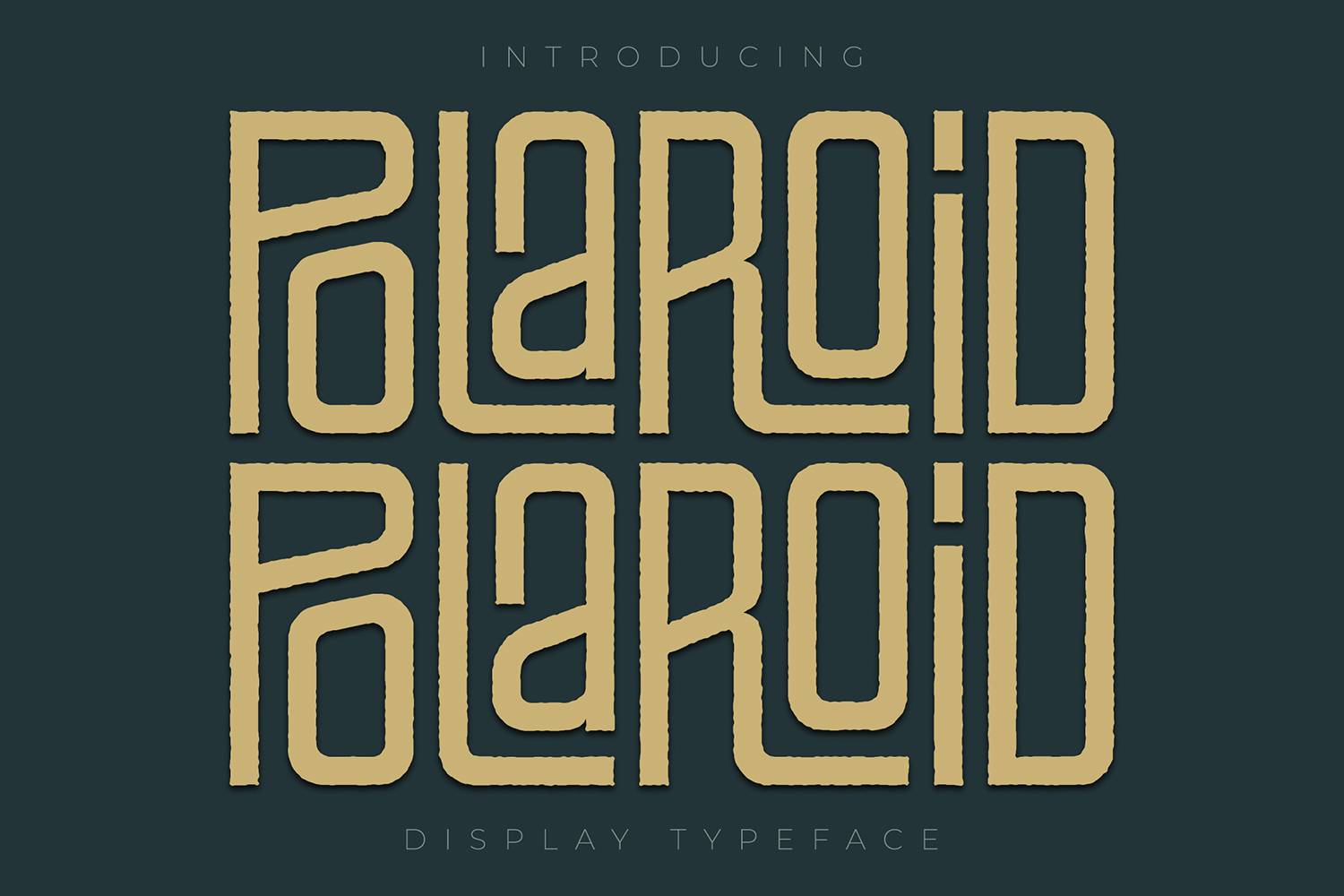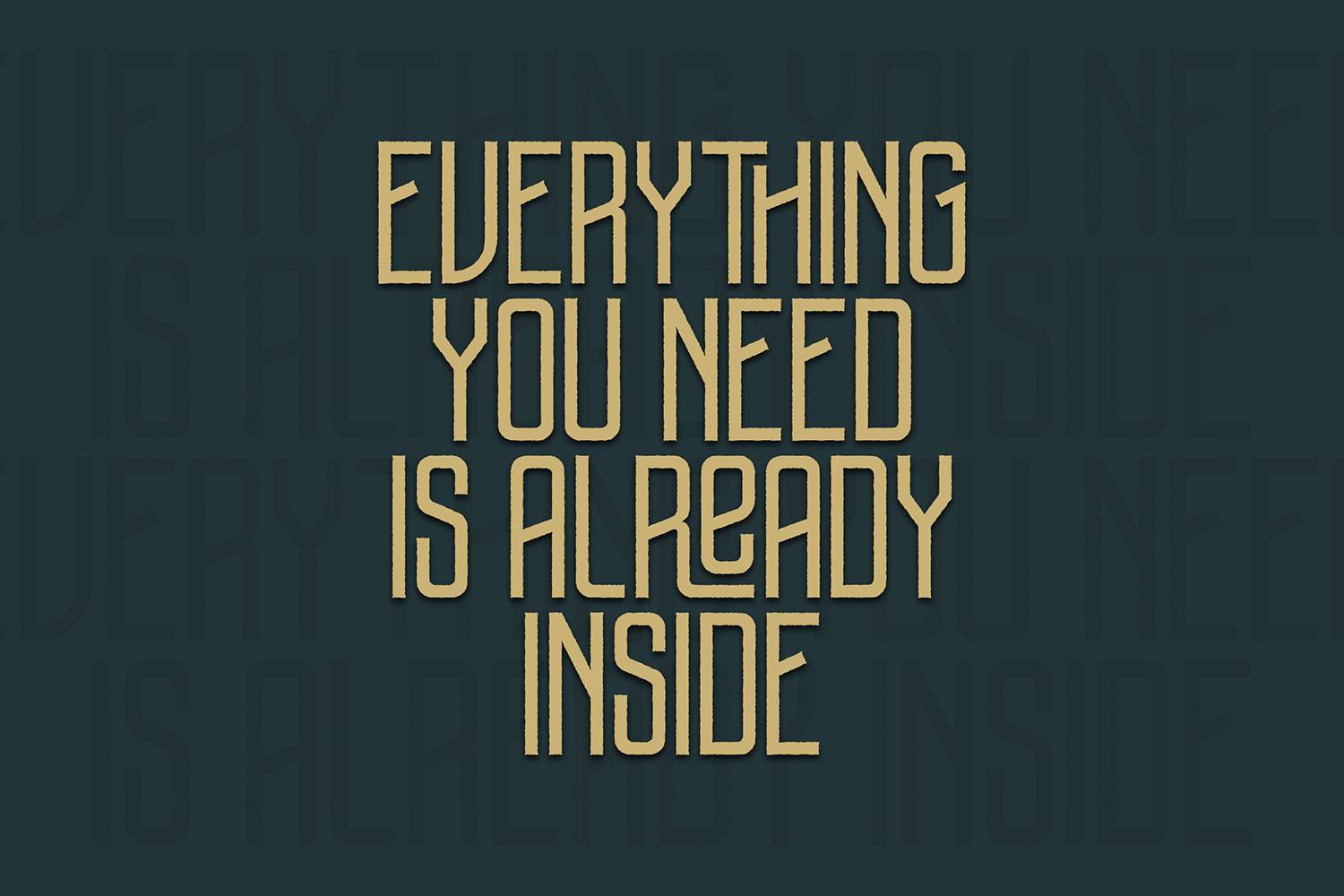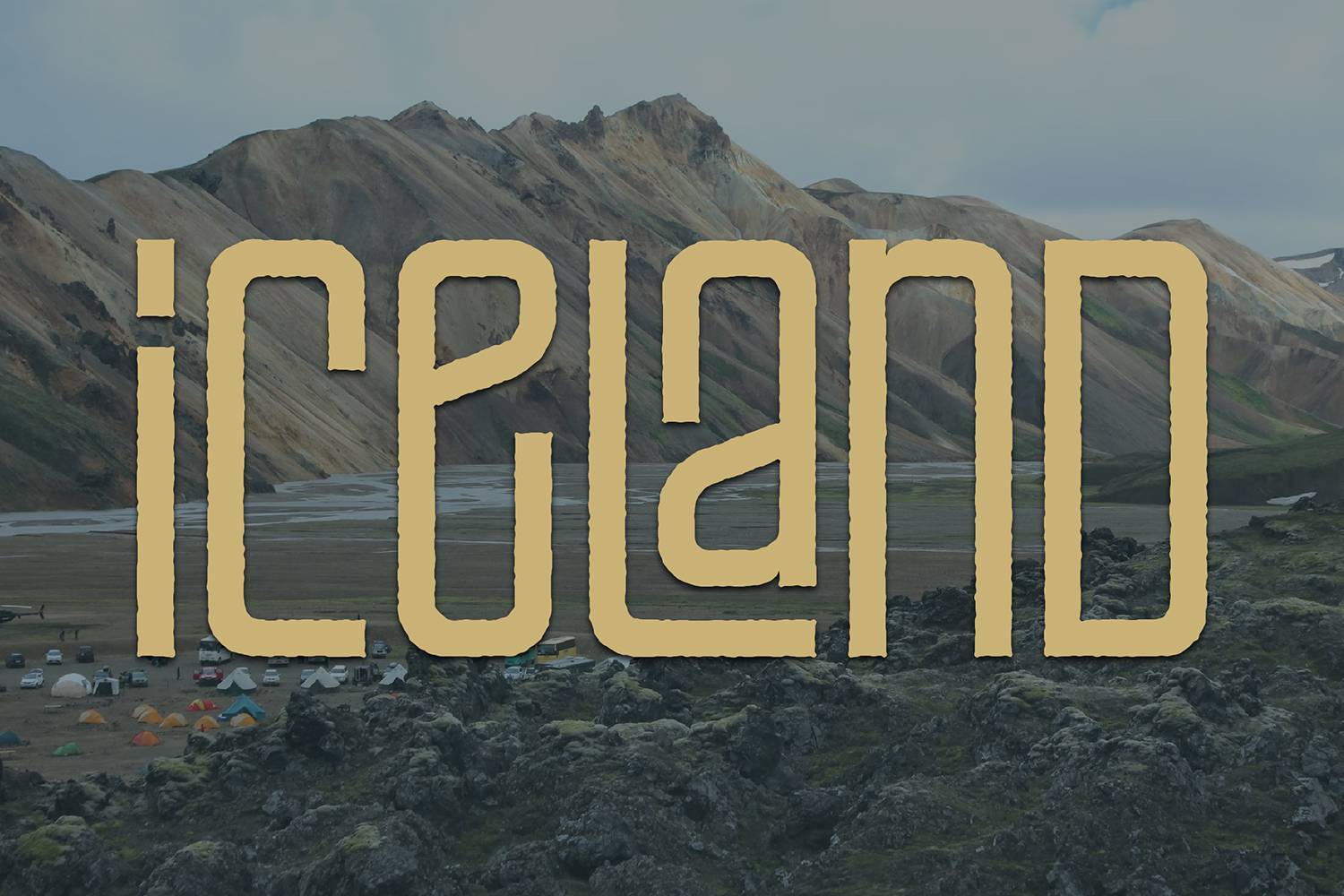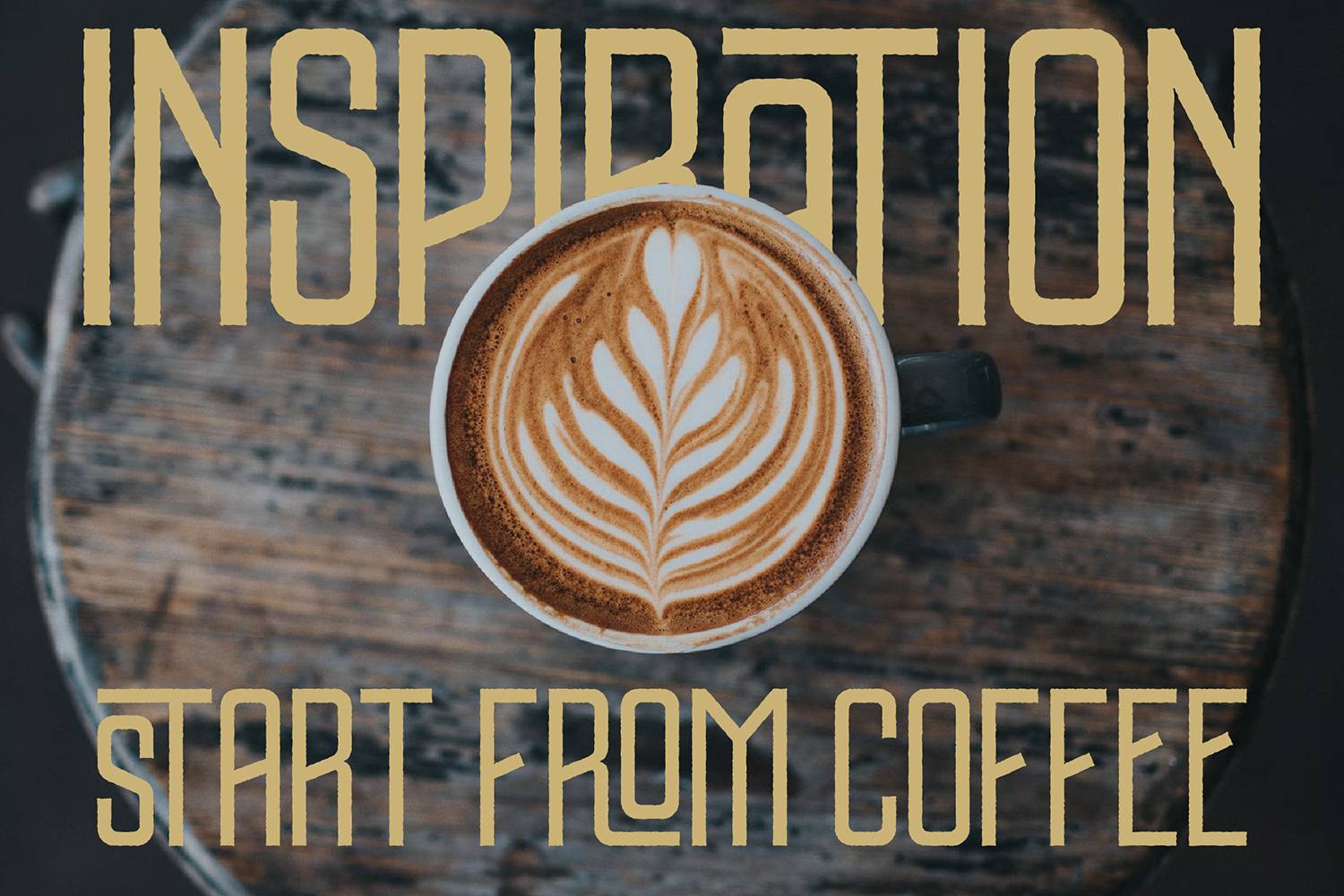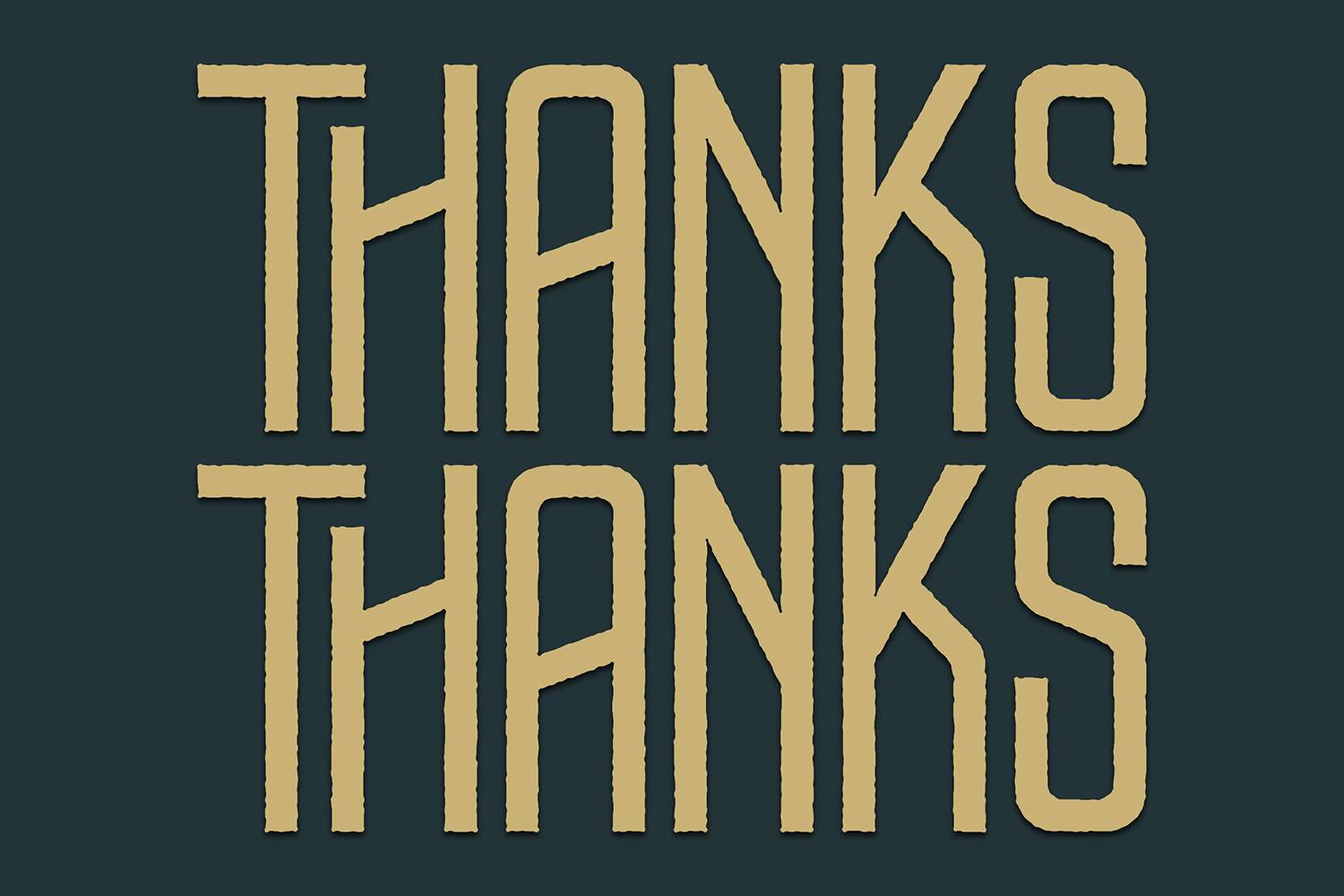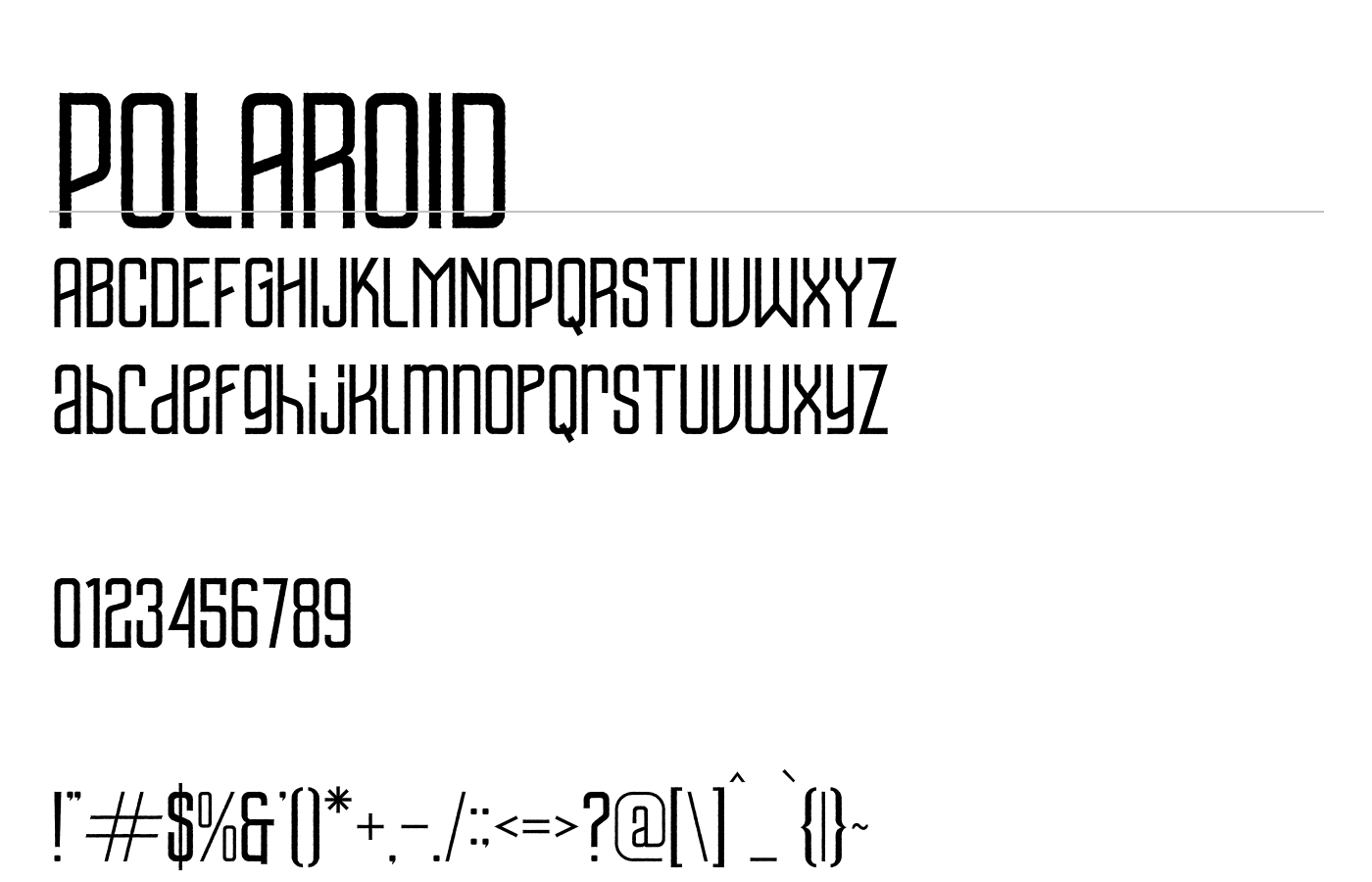
Polaroid is a tall, narrow sans serif font with a modern and slightly retro feel, characterized by its condensed proportions and consistent stroke weight that give it a clean, geometric look. Its unique letterforms, like the angled leg of the R and the distinctive Q tail, add personality while maintaining clarity, making it well suited for attention-grabbing headlines, logos, and stylish branding projects where a sleek, vintage-inspired vibe is desired. This font works best in display use, bringing a sense of sophistication and creativity without compromising readability.
Polaroid Font
About Polaroid Font